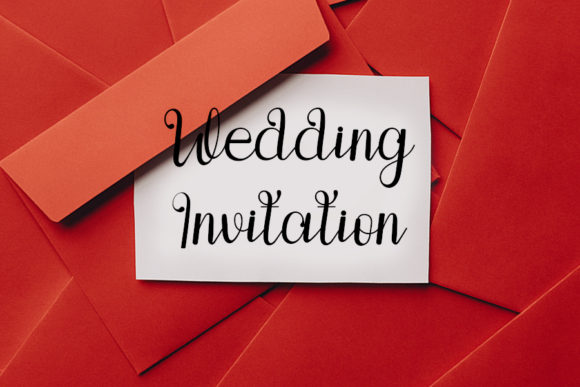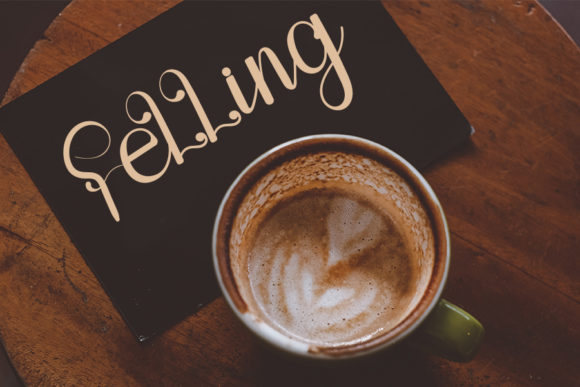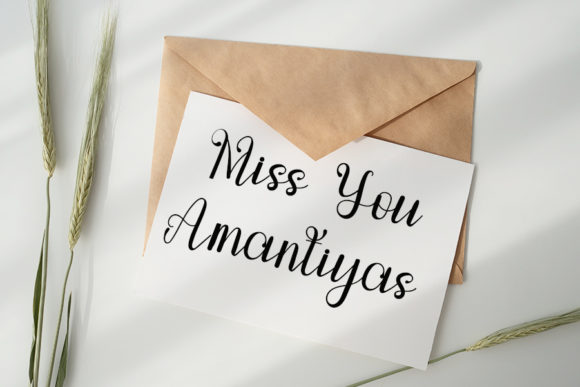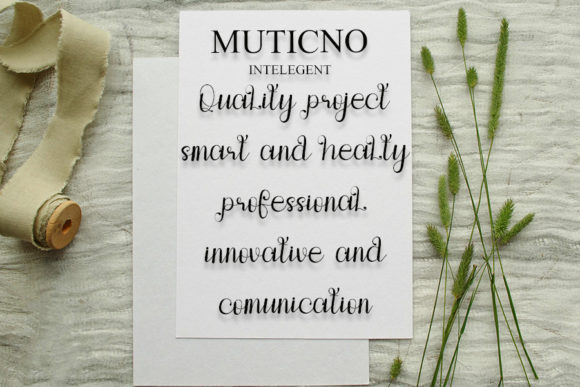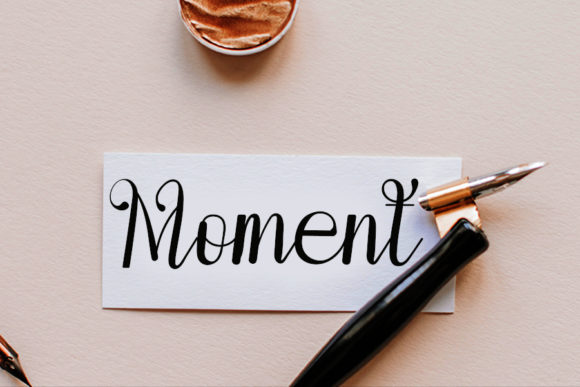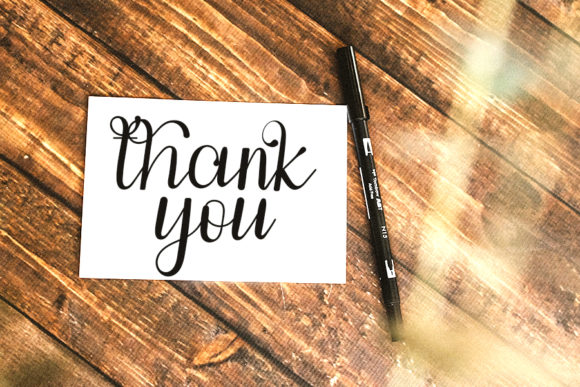
Hasyanah Font: Elevate Your Designs with Elegance and Flair
In the world of typography, a font can make or break a design. For designers and crafters, finding the perfect font that adds a touch of elegance and sophistication can be a daunting task. However, if you’re looking for a font that embodies delicacy, elegance, and a flowing script, look no further than the Hasyanah Font.
What is Hasyanah Font?
Hasyanah is a delicate, elegant, and flowing handwritten font that has taken the design world by storm. Its beautiful and well-balanced characters make it an ideal choice for a wide range of designs, from wedding invitations and branding materials to digital content and craft projects.
Characteristics of Hasyanah Font
So, what sets Hasyanah Font apart from other fonts? Here are some of its key characteristics:
- Delicate and Elegant: Hasyanah Font boasts a delicate and elegant script that exudes sophistication and refinement.
- Flowing Script: The font features a flowing script that connects each letter seamlessly, creating a beautiful and harmonious visual effect.
- Well-Balanced Characters: Each character in the Hasyanah Font is carefully crafted to ensure balance and proportion, making it easy to read and visually appealing.
- Versatile: Hasyanah Font can be used for a wide range of designs, from formal events and branding materials to digital content and craft projects.
How to Use Hasyanah Font in Your Designs
Adding Hasyanah Font to your designs can elevate them to a whole new level. Here are some ideas to get you started:
- Wedding Invitations: Use Hasyanah Font to create beautiful and elegant wedding invitations that set the tone for a sophisticated and memorable event.
- Branding Materials: Add a touch of elegance to your branding materials, such as business cards, letterheads, and brochures, with Hasyanah Font.
- Digital Content: Use Hasyanah Font to create engaging and visually appealing digital content, such as blog posts, social media graphics, and email newsletters.
- Craft Projects: Add a personal touch to your craft projects, such as handmade cards, scrapbooking, and DIY decorations, with Hasyanah Font.
Why Choose Hasyanah Font?
With so many fonts available, why choose Hasyanah Font? Here are some reasons why designers and crafters love this font:
- Unique and Distinctive: Hasyanah Font has a unique and distinctive style that sets it apart from other fonts.
- Elegant and Sophisticated: The font exudes elegance and sophistication, making it perfect for designs that require a touch of refinement.
- Easy to Read: Despite its delicate and flowing script, Hasyanah Font is easy to read and understand.
- Versatile: The font can be used for a wide range of designs and projects.
In conclusion, Hasyanah Font is a beautiful and elegant handwritten font that can elevate your designs to a whole new level. Its delicate and flowing script, well-balanced characters, and versatility make it an ideal choice for designers and crafters. Whether you’re creating wedding invitations, branding materials, digital content, or craft projects, Hasyanah Font is sure to add a touch of sophistication and elegance. So, add it to your most creative ideas and notice how it makes them come alive!